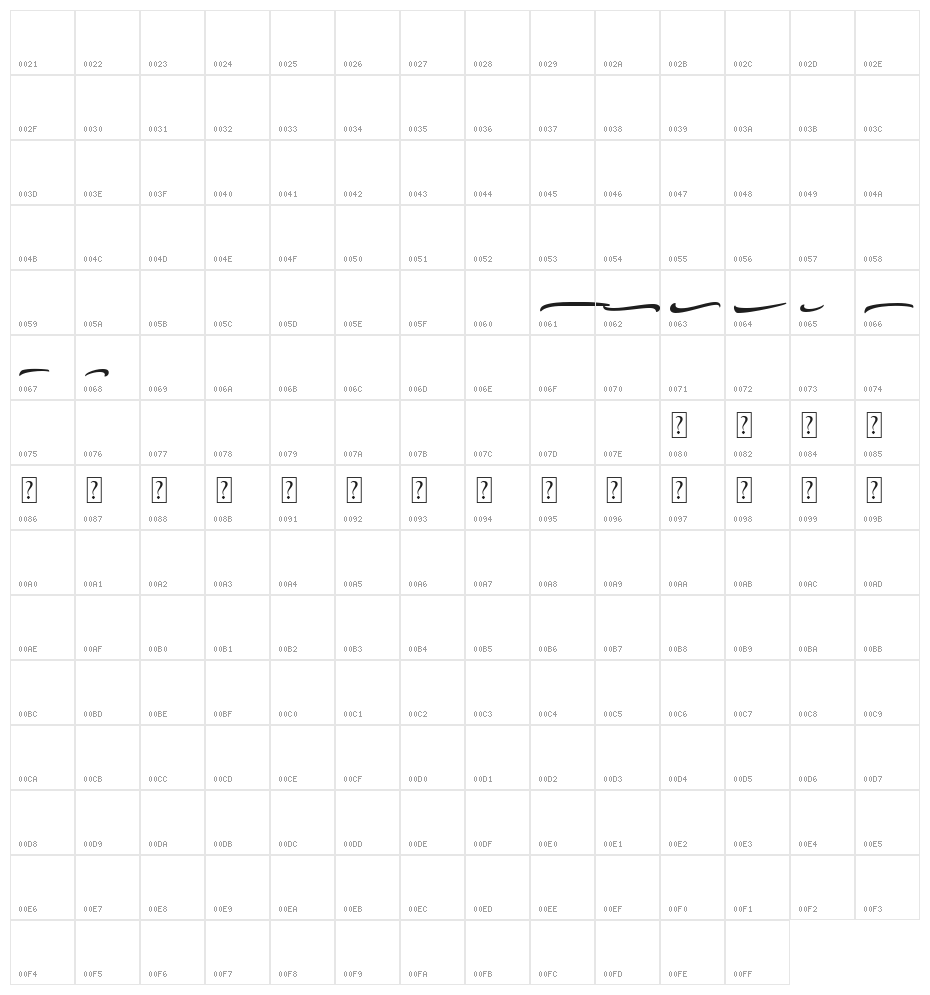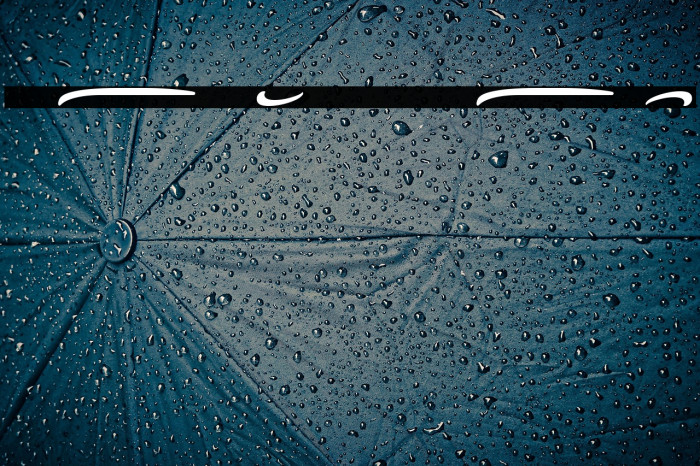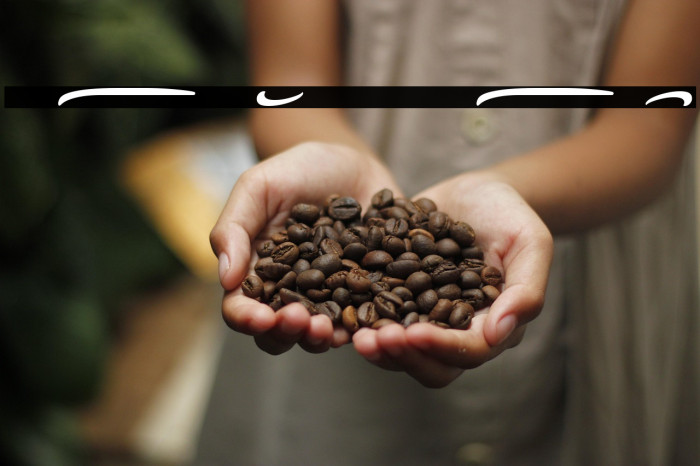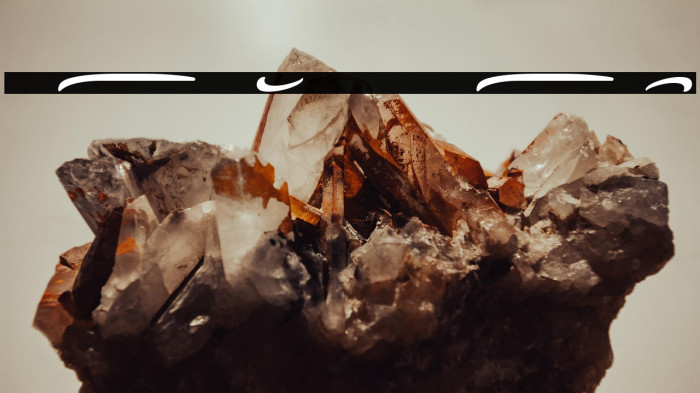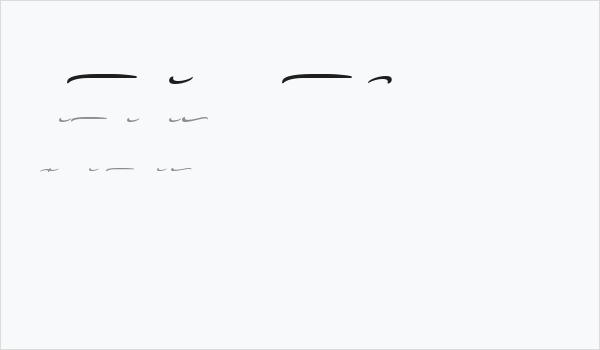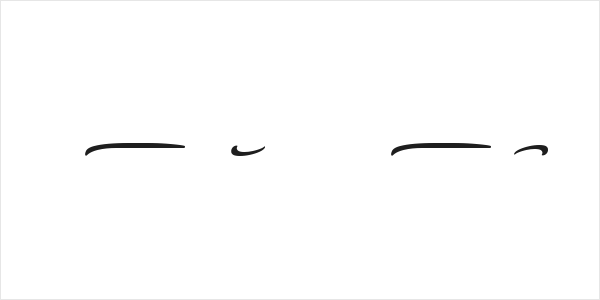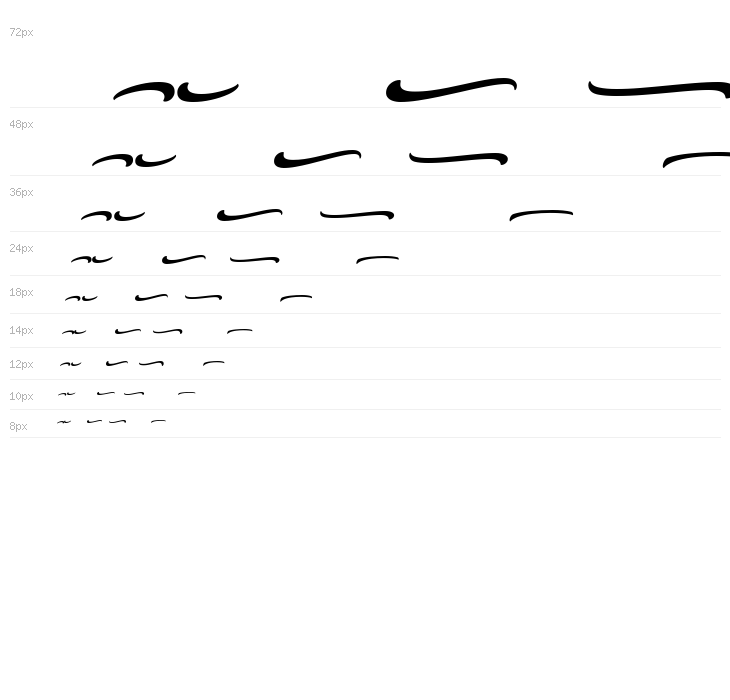
Dakiens Swash Font
Dakiens Swash Description
This font features elegant, flowing swashes that create a sense of movement and sophistication. The strokes are smooth and fluid, with a calligraphic style that adds a touch of elegance and charm. The design is highly decorative, making it ideal for projects that require a personal and artistic touch. The characters are well-balanced, with an emphasis on the curves and flourishes that define its unique style. This font is perfect for creating eye-catching headlines, invitations, and branding materials that need a distinctive and stylish appearance.
| Use Case | Headlines, Invitations, Logos |
| Proposed Projects | Ideal for wedding invitations, branding, logos, and artistic projects requiring a personal touch. |